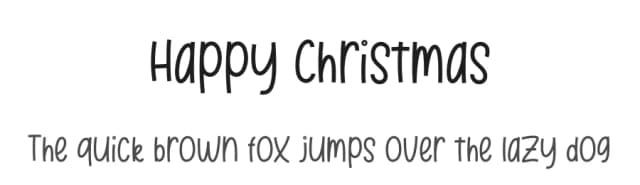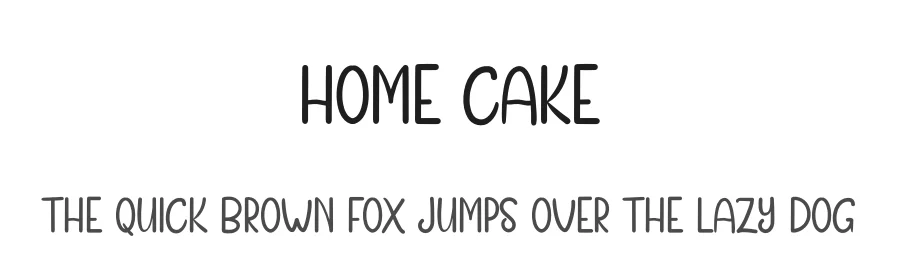
About Sweety Font
Sweety Specifications
| Font Family | Cupcake |
| Full Name | Cupcake |
| Glyph Count | 119 glyphs |
| PostScript Name | CupcakeRegular |
| Designer | Risma Ramwi |
Sweety ships with 1 OpenType feature you can switch on in apps that support them (Illustrator, InDesign, Affinity, Figma, CSS font-feature-settings).
Sweety supports 198 languages.
Sweety Font is a script font that shines as a display or heading face. Pair it with a clean sans-serif or serif font for body text β the contrast creates a clear hierarchy while the two styles stay balanced and easy to read.
Sweety Font